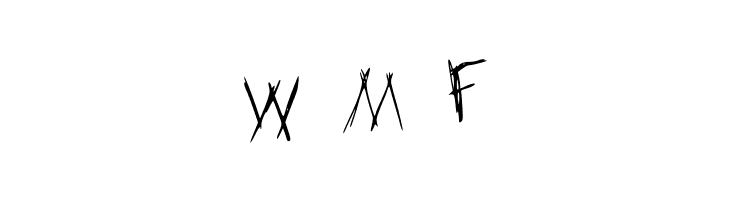
( Mijou For Ever )
A chaotic, fragmented font with a gritty and textured appearance.
( Randi Ilhamsyah )
A chaotic, edgy font with jagged, irregular strokes and a distressed appearance.
An eclectic, ransom-note style font with varied character styles and orientations.
A chaotic, ransom note-style font with mixed typefaces and sizes.
A bold, eclectic font with a distressed, collage-like appearance.
A bold, distressed font with chaotic, paint-splattered textures.
A chaotic, ransom note-style font with mismatched characters.
A chaotic, ransom-note style font with high contrast and eclectic character designs.
A bold, eclectic font with a ransom note style and mismatched characters.
A chaotic, ransom note-style font with high contrast and an edgy, rebellious vibe.
A chaotic, ransom note-style font with high contrast and eclectic character designs.